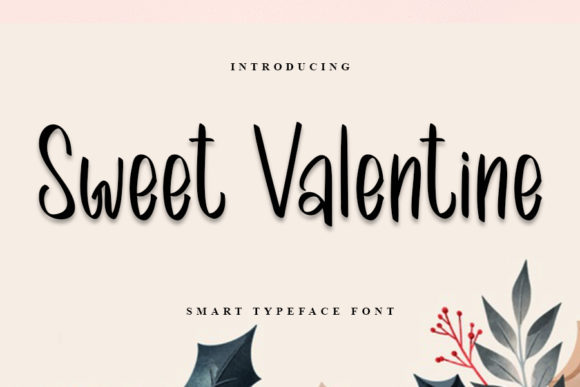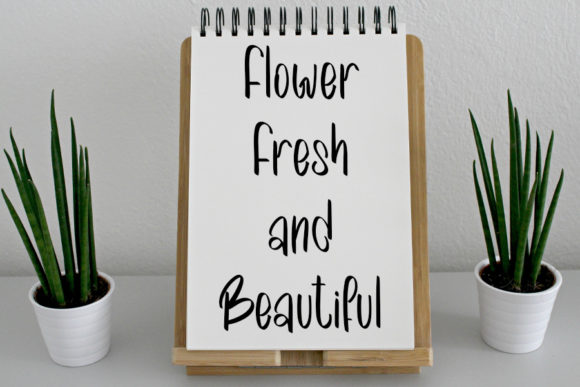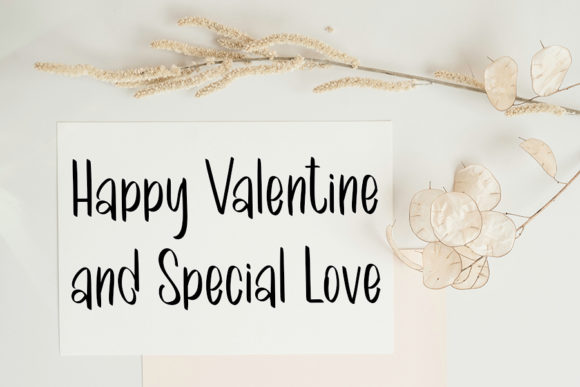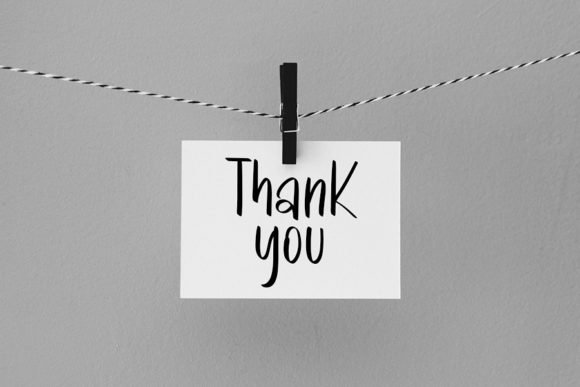
About Sweet Valentine Font
Sweet Valentine is a handwritten font that has beautiful and flowing lines and a dancing baseline that gives this font a romantic feel. Feature this font in your valentine’s day crafts, greeting cards, apparel designs, packaging designs, and more.